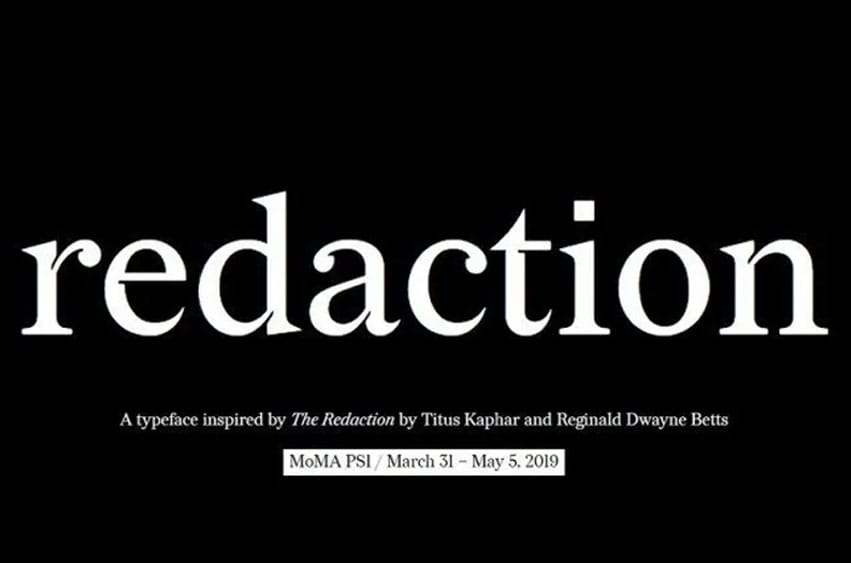
Redaction Font is a serif font family. It is a font that can be used for almost every kind of design project including printing materials. Use your imagination, and your design will be more exciting and beautiful more than ever before thanks to Redaction Font Family.